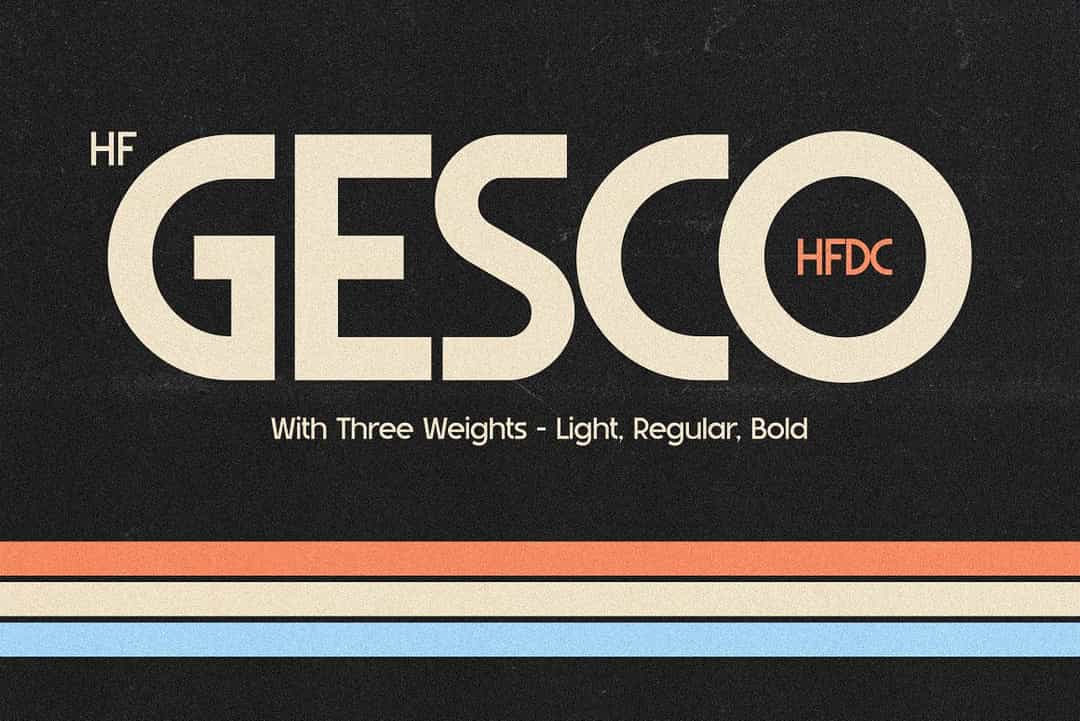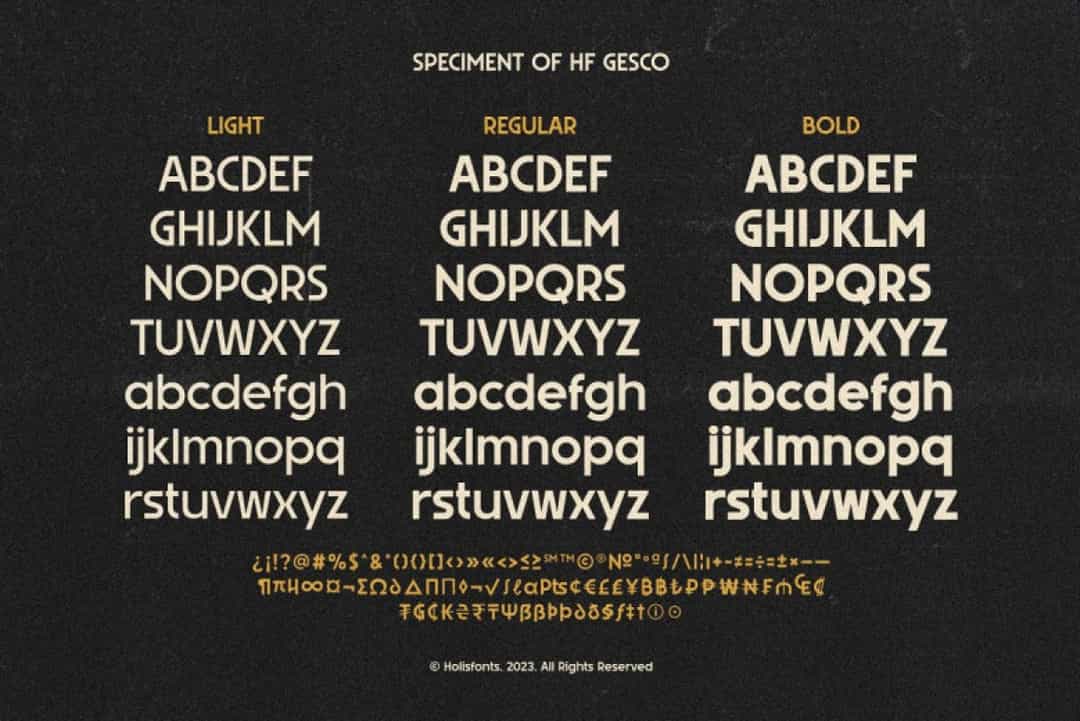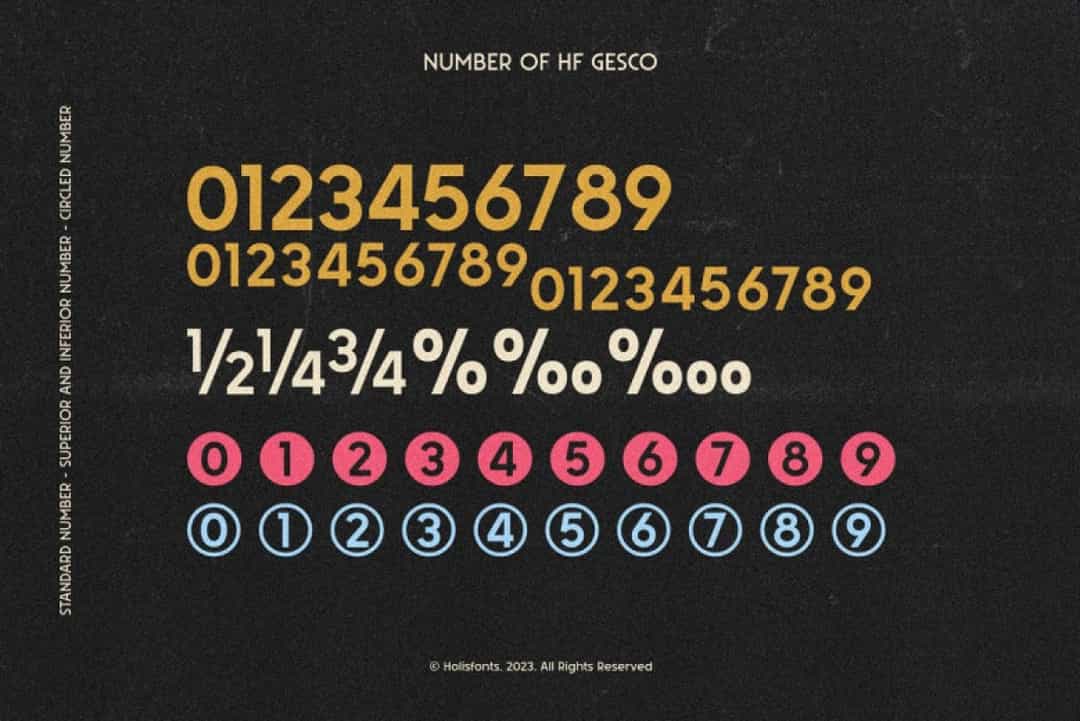
Gesco HF is an adjustable display sans serif font that features three weights – Regular, Light and Bold – designed to resemble 90s cover art and album posters from that decade. Featuring 967 glyphs that support over 100 languages in addition to numbers symbols including superior numbers (higher numbers than lower) as well as circular numbers, Gesco supports nearly 100 languages as a total package.